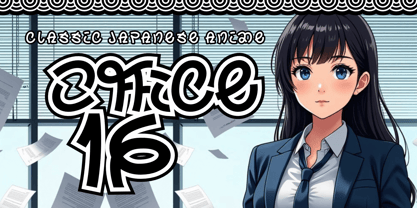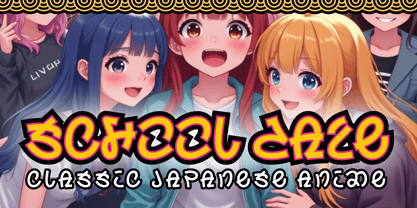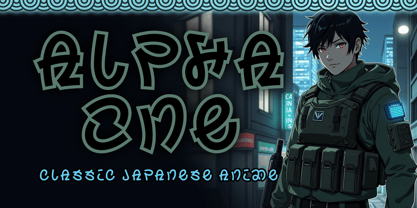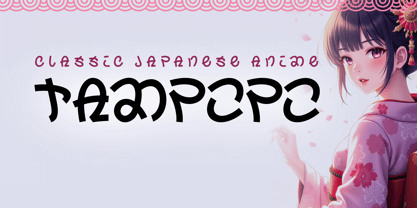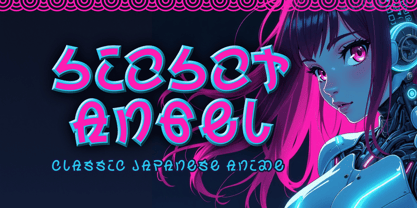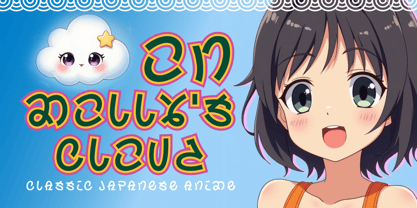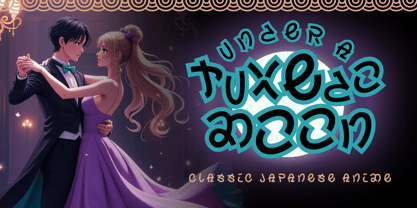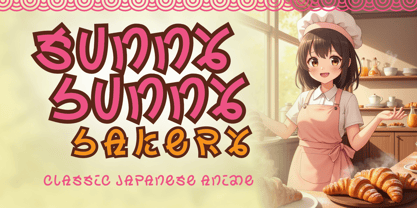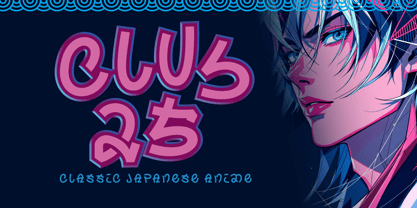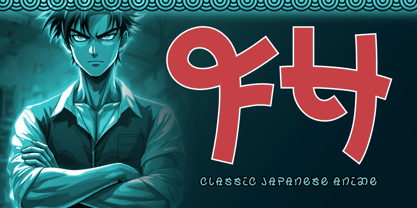
Tampopo
The Tampopo Font Family was designed by Michael Kovacevich and published by MKGD. Tampopo contains 1 styles.
Tampopo is another typeface that is derived from Japanese characters. In comparison to their Chinese and Korean counterparts, Japanese characters tend to be rather simplistic in their construction.
Tampopo’s sans serifed appearance, along with its consistent strokes of equal thickness, is what forms the basis of this font’s aesthetics. It*s a Japanese looking typeface that possesses a basic and uncomplicated charm that allows it to communicates plainly and clearly.